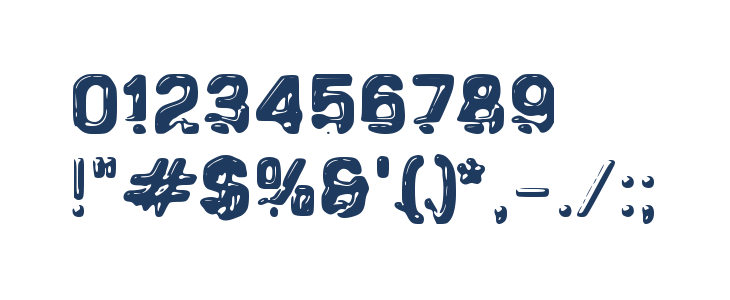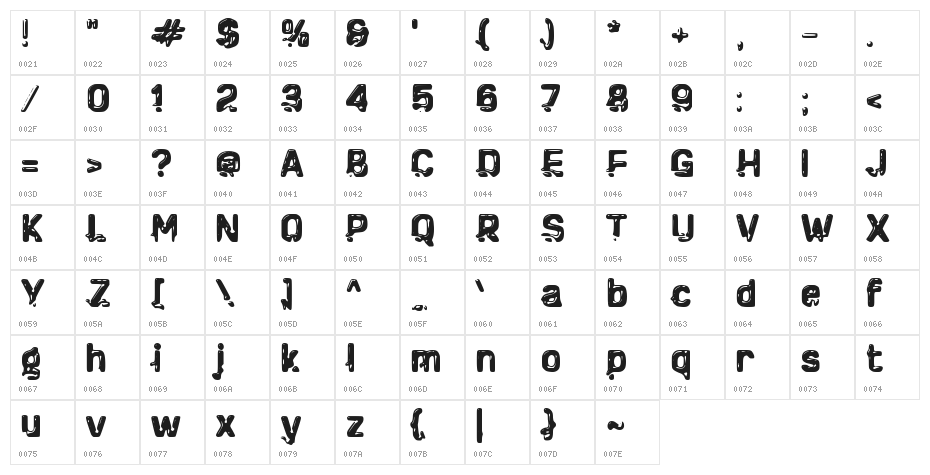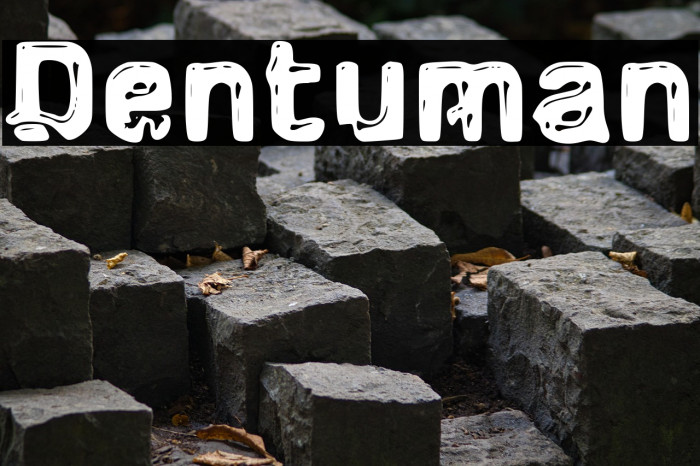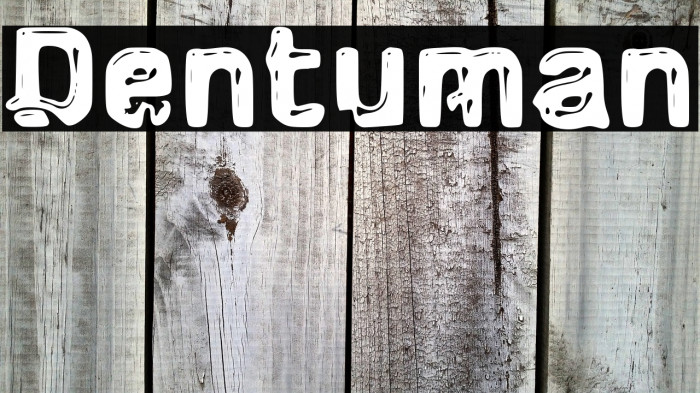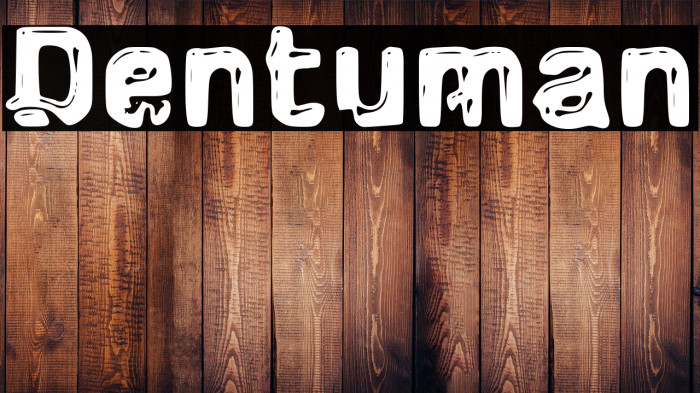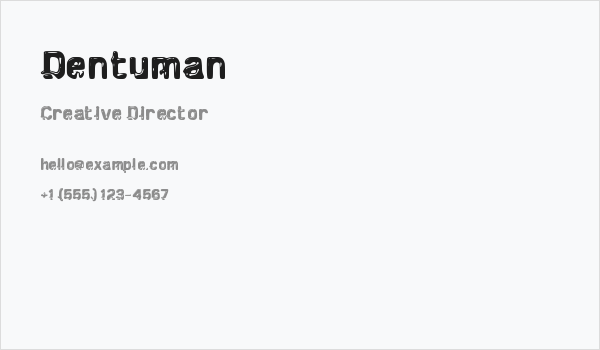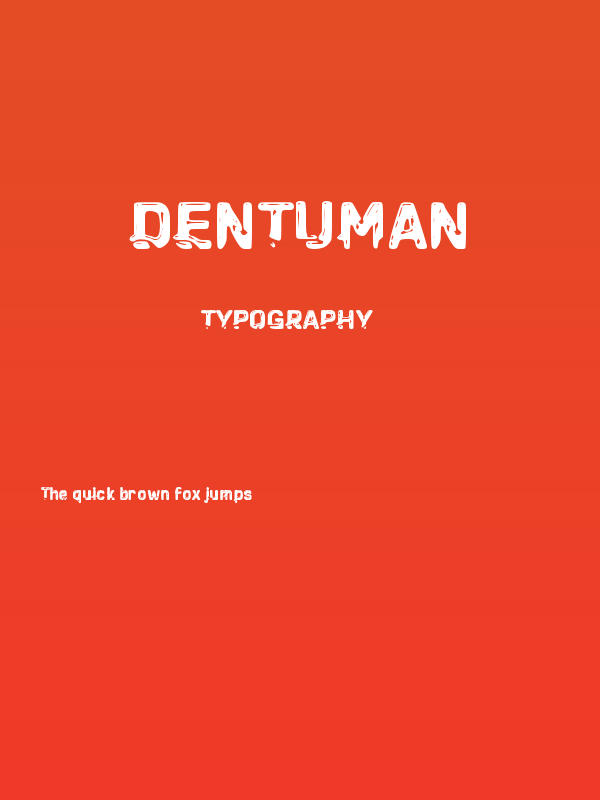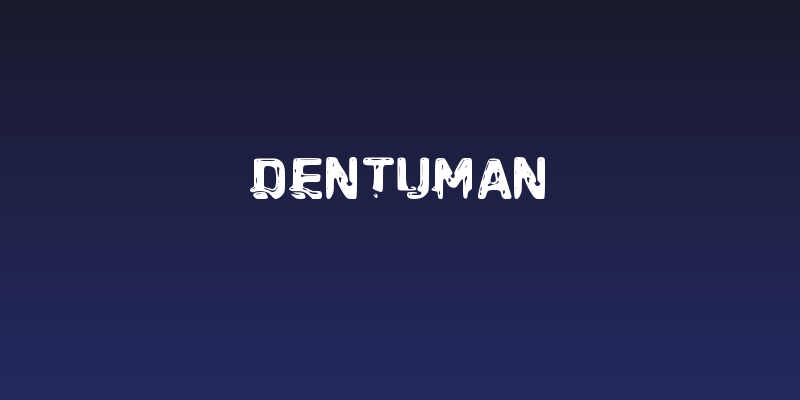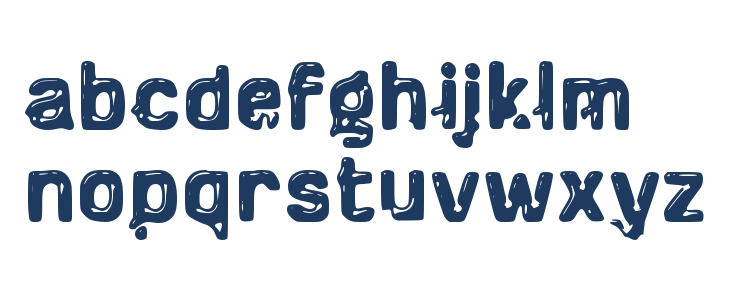
Dentuman Font
Dentuman Description
This font features a bold and playful design with a unique, dripping effect that gives it a dynamic and eye-catching appearance. The characters are rounded and thick, creating a sense of fun and creativity. The uppercase and lowercase letters maintain a consistent style, while the numbers and special characters complement the overall aesthetic. The font's distinctive look is ideal for projects that require a touch of whimsy and boldness.
| Proposed Projects | Ideal for posters, children's book covers, playful branding, and creative advertisements. |